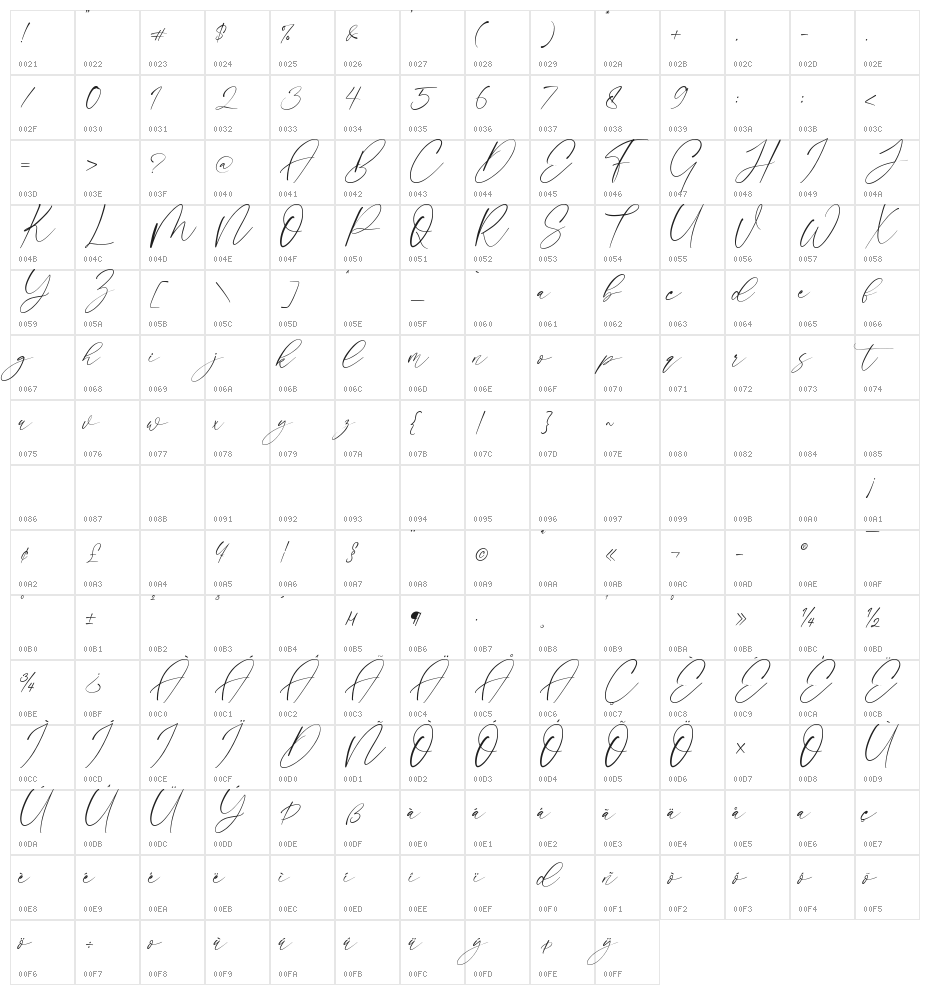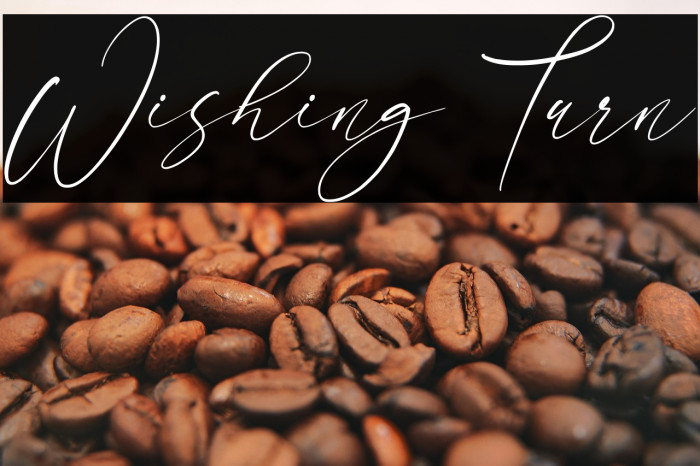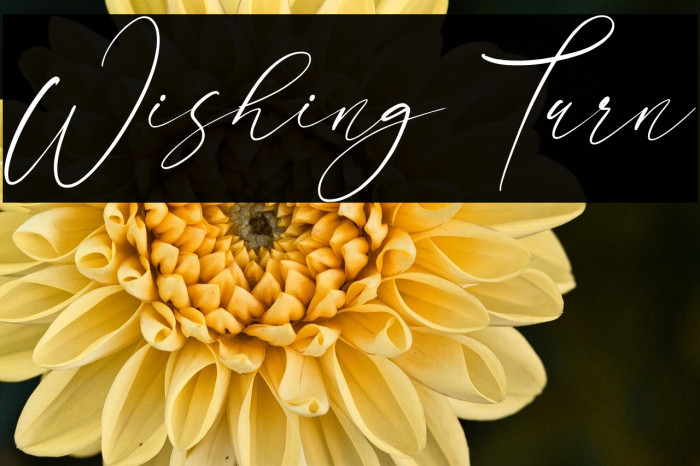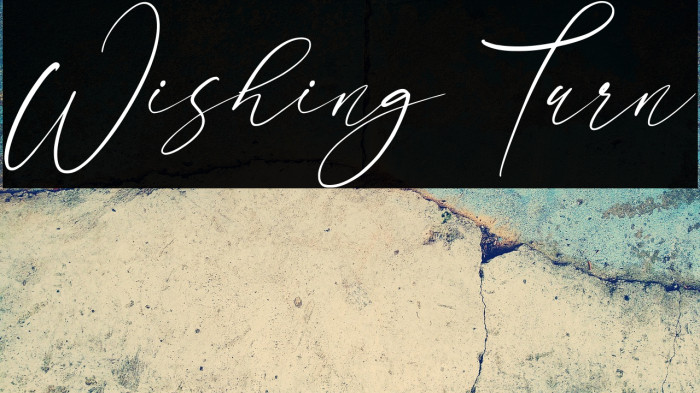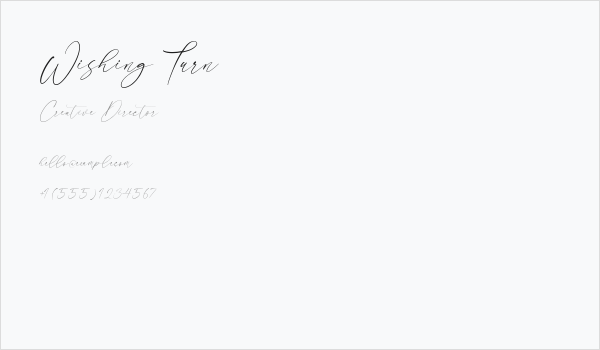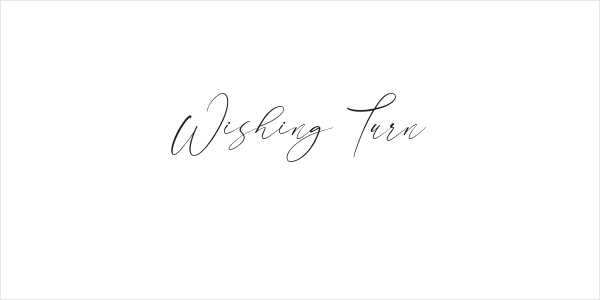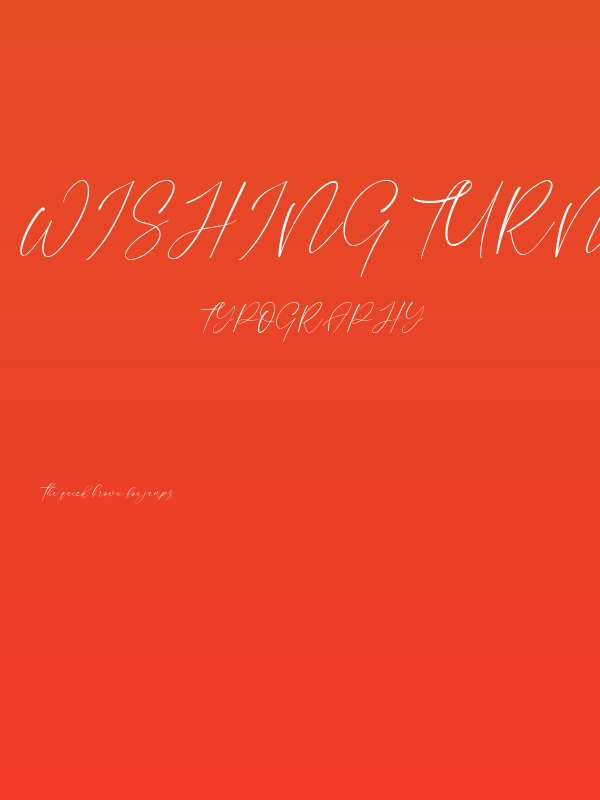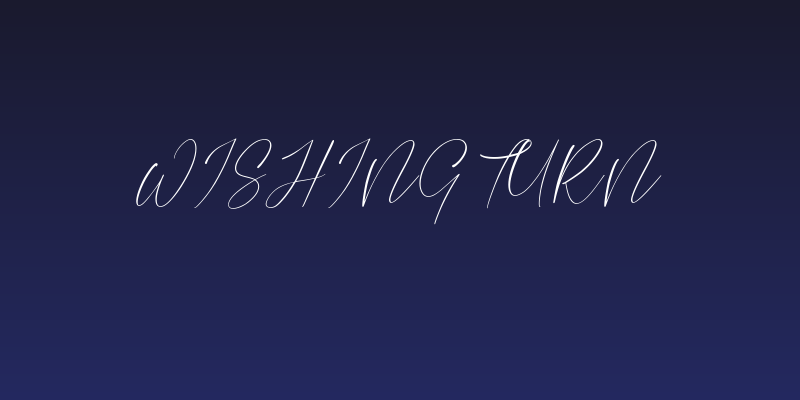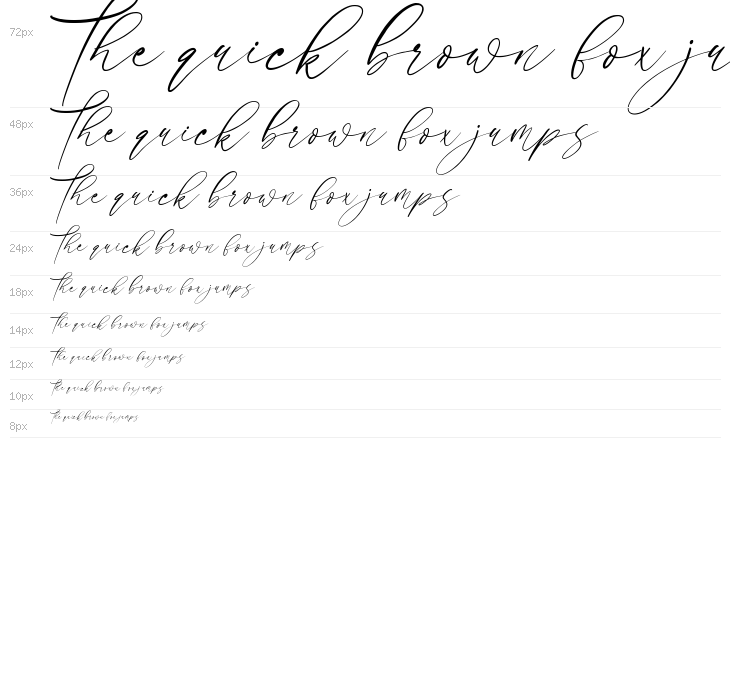
Wishing Turn Font
Wishing Turn Description
This elegant script font features a flowing, cursive style with graceful loops and swashes. The characters are connected, creating a seamless and fluid appearance that mimics natural handwriting. The uppercase letters are slightly more elaborate, with extended strokes and decorative flourishes, while the lowercase letters maintain a consistent, smooth flow. The numbers and special characters are designed to match the overall aesthetic, ensuring a cohesive look. This font exudes sophistication and charm, making it ideal for projects that require a personal touch.
| Proposed Projects | Ideal for wedding invitations, greeting cards, branding, and elegant packaging. |